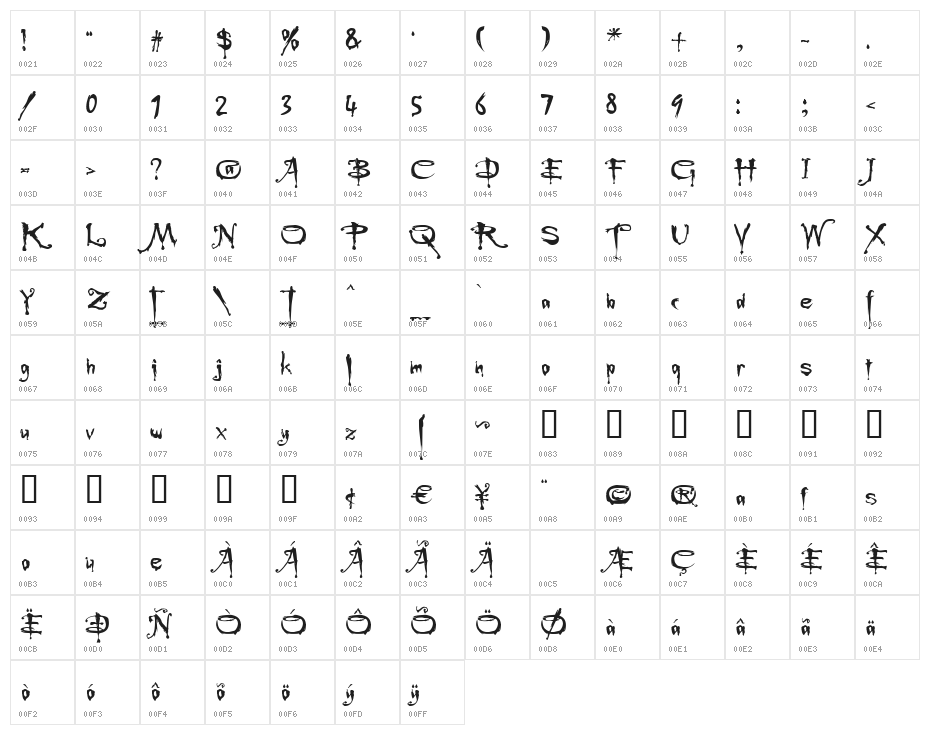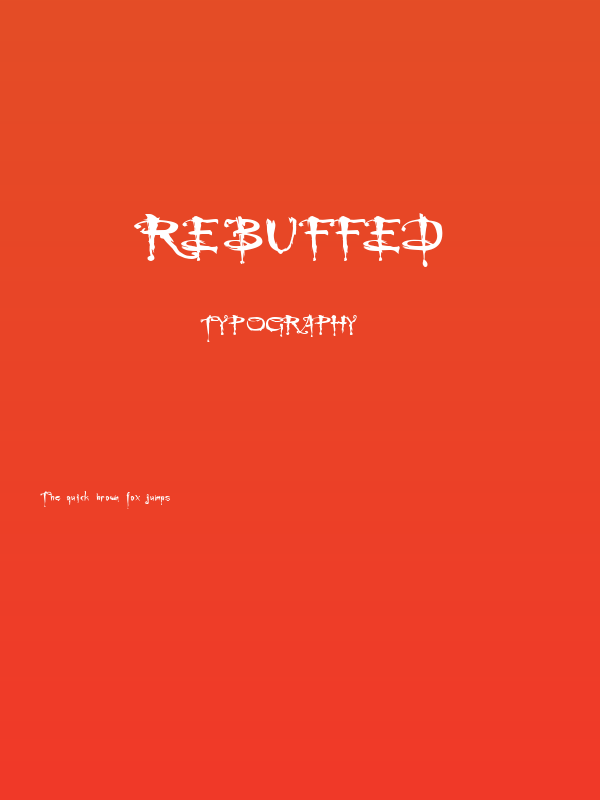
Rebuffed Font
✎ Drippy
| Progetti proposti | Ideal for horror-themed designs, Halloween posters, edgy album covers, or any project needing a bold, unconventional look. |